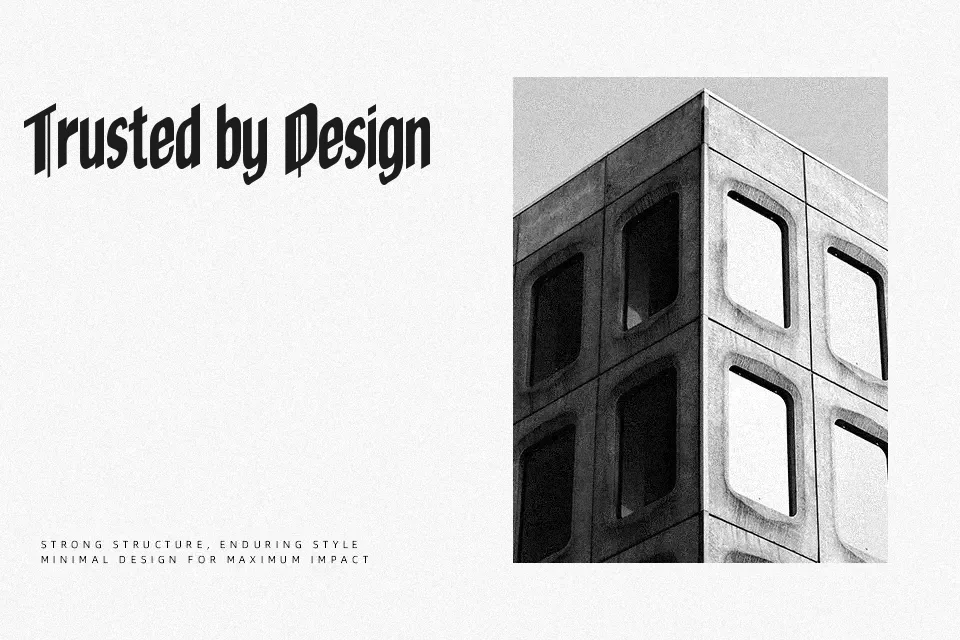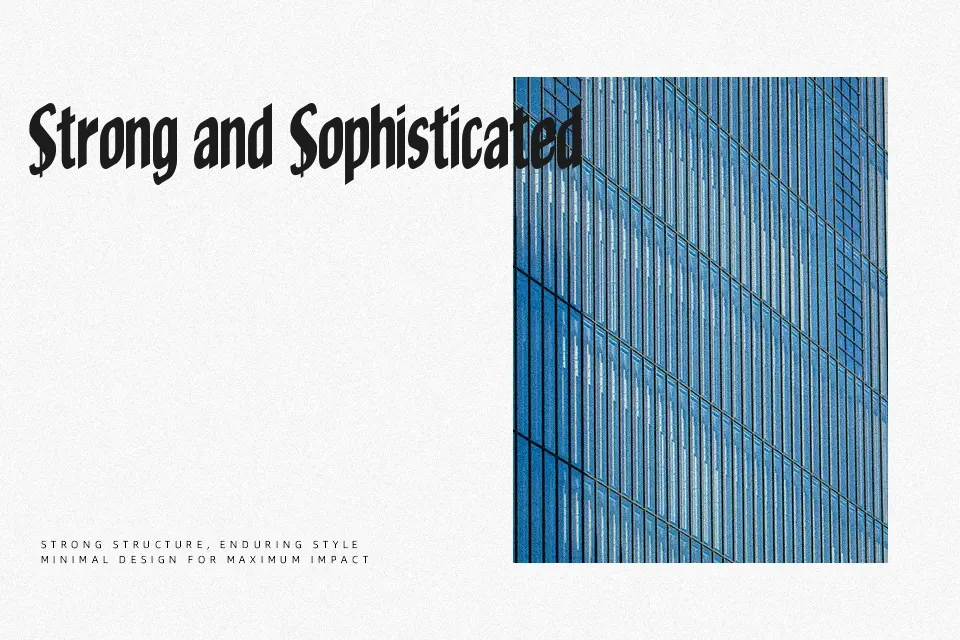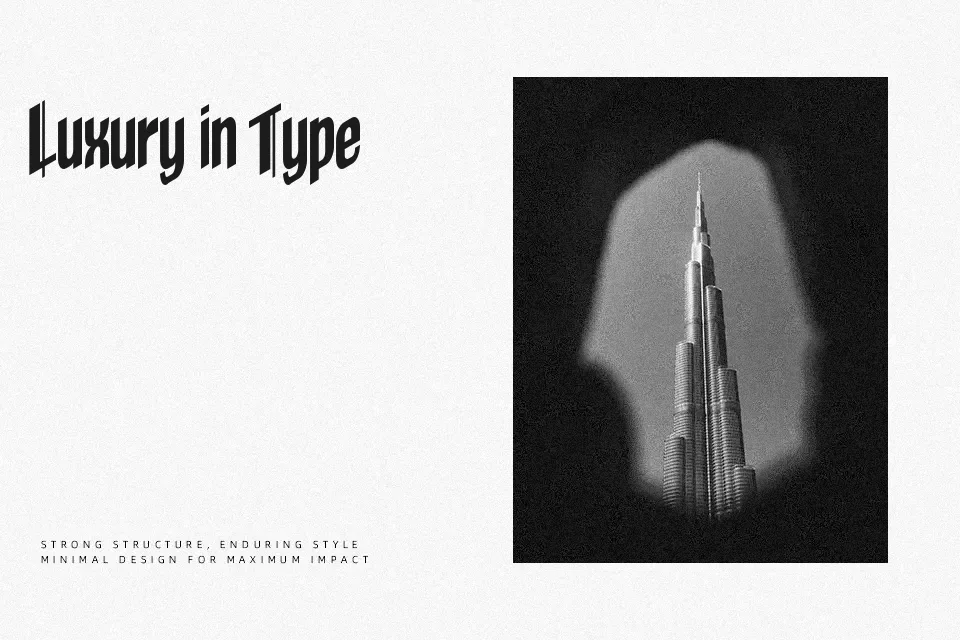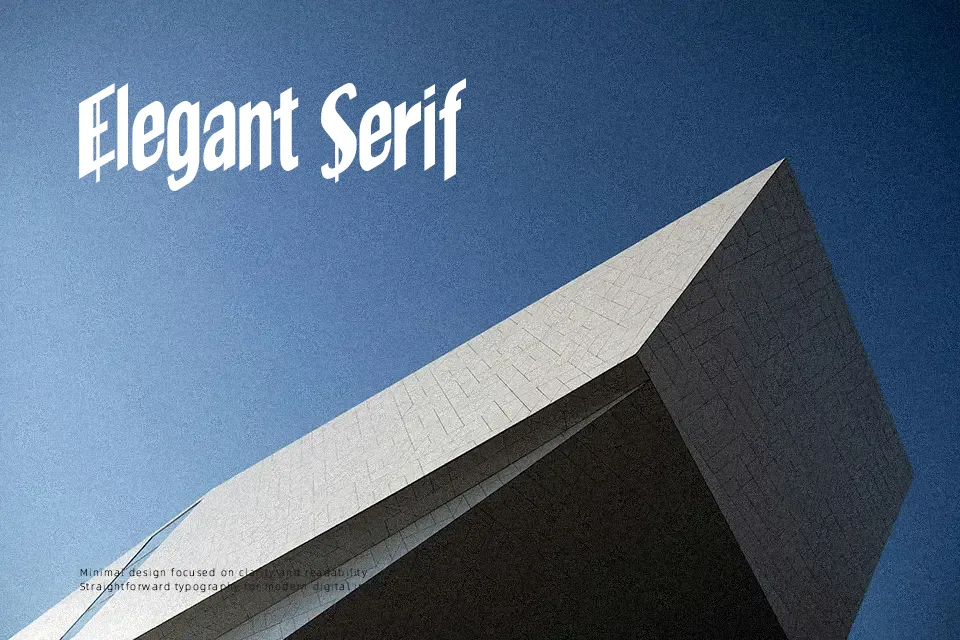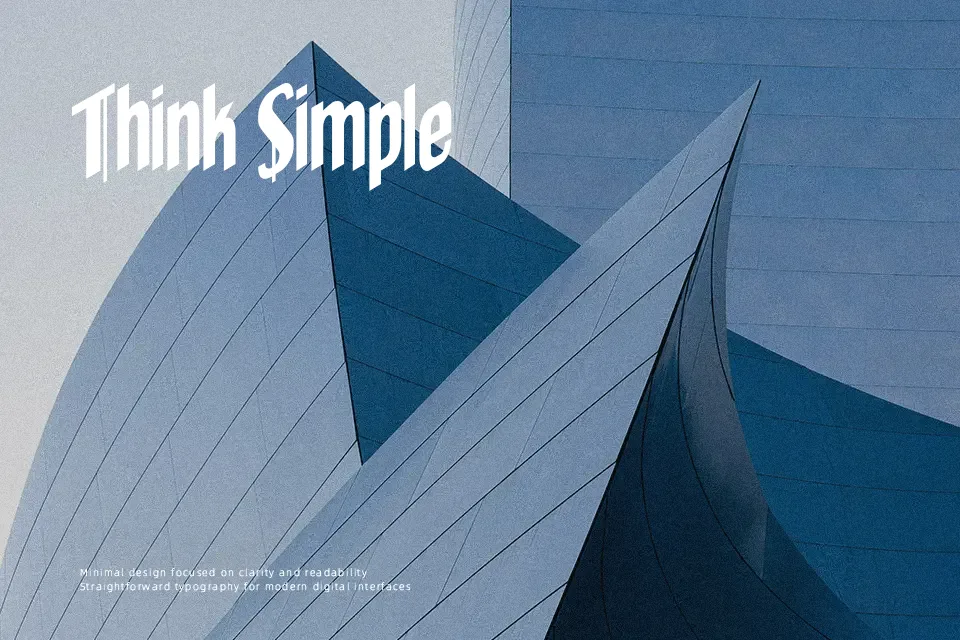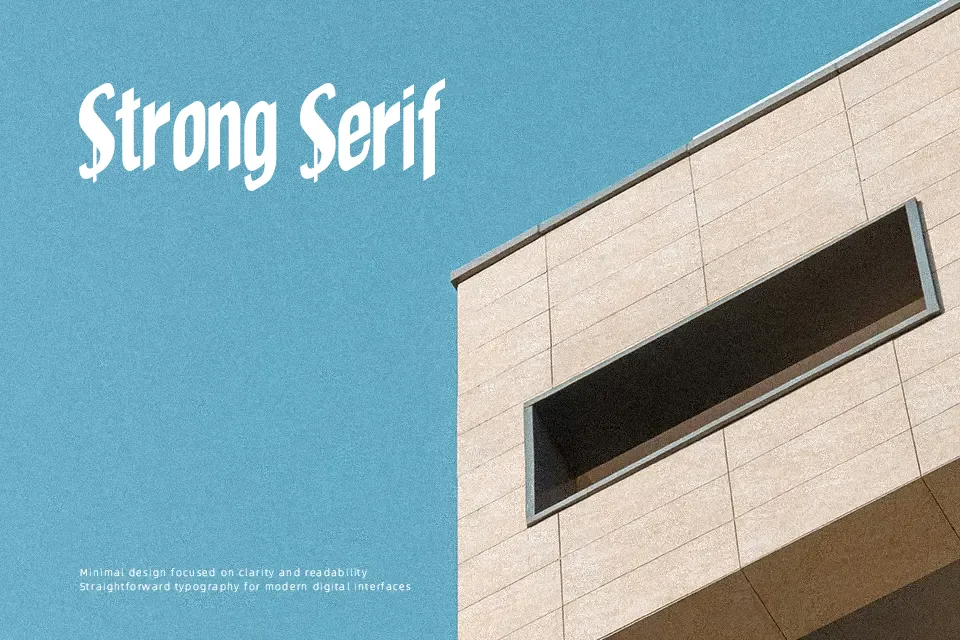
Olde Chicago Font
Olde Chicago Font works best as a forceful display face, using narrow blackletter-inspired forms, pointed details, and tightly structured vertical strokes. The letterforms create a dense, historic texture that gives headings and initials a strong visual identity. Spacing appears compact, so short words hold together effectively in posters, labels, and signage. Its decorative shapes are easier to appreciate at larger sizes, where the counters and angled terminals remain more distinct. The typeface is less comfortable in continuous reading, and small captions can become difficult to parse. It is a practical choice when atmosphere matters more than neutral readability.
Best For: medieval event posters,vintage pub signage,album cover titles,dramatic logo marks
Perfect for branding, headline, and logo, with a classic and blackletter style.